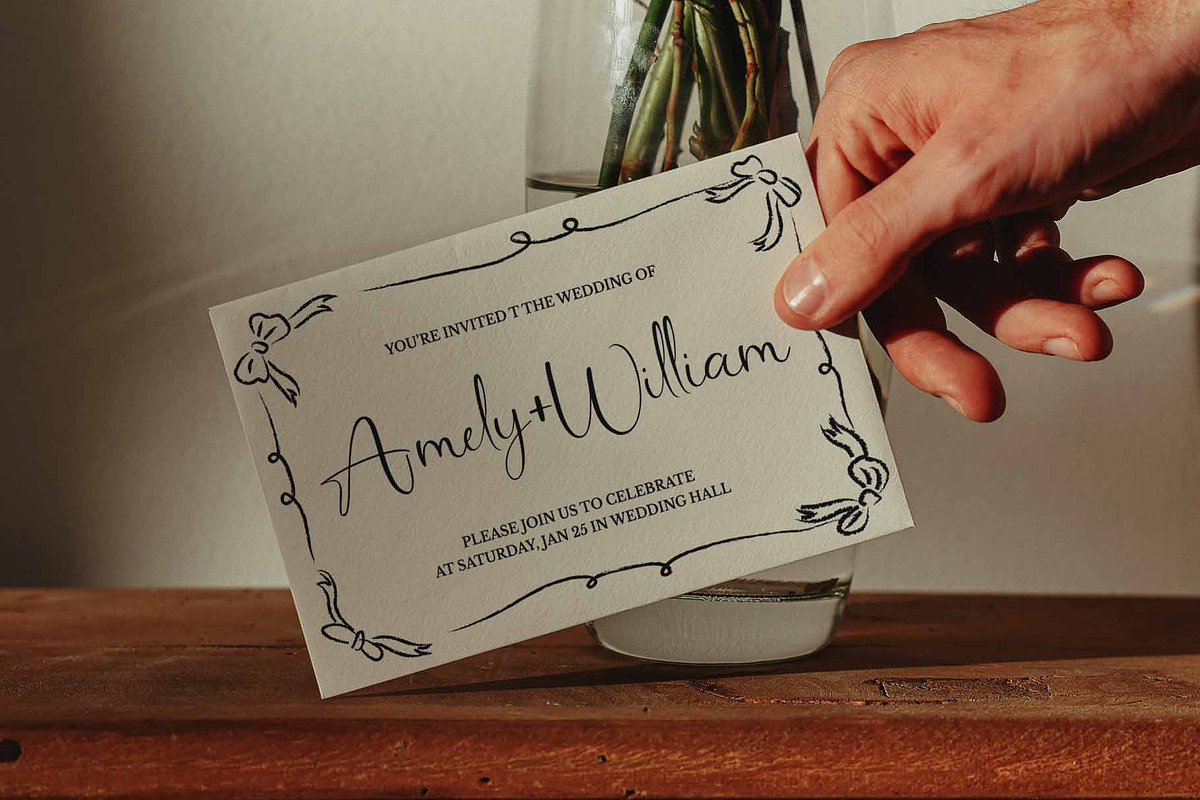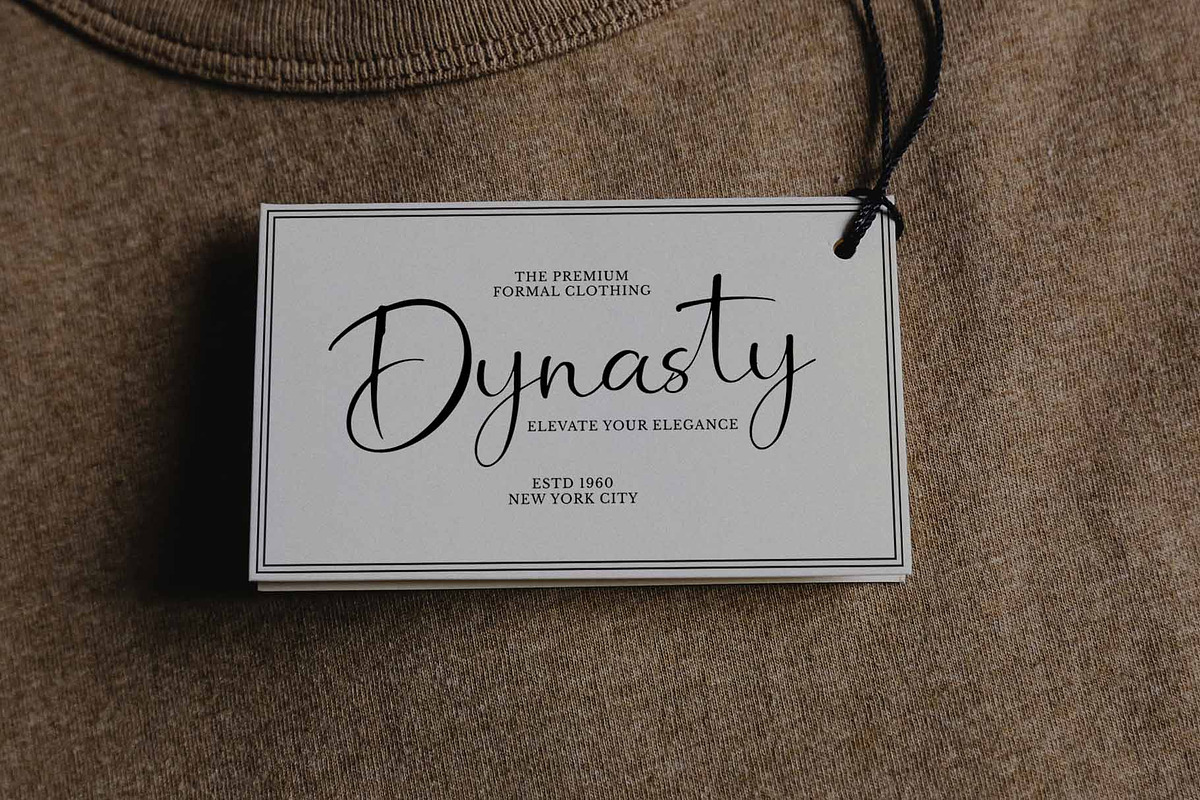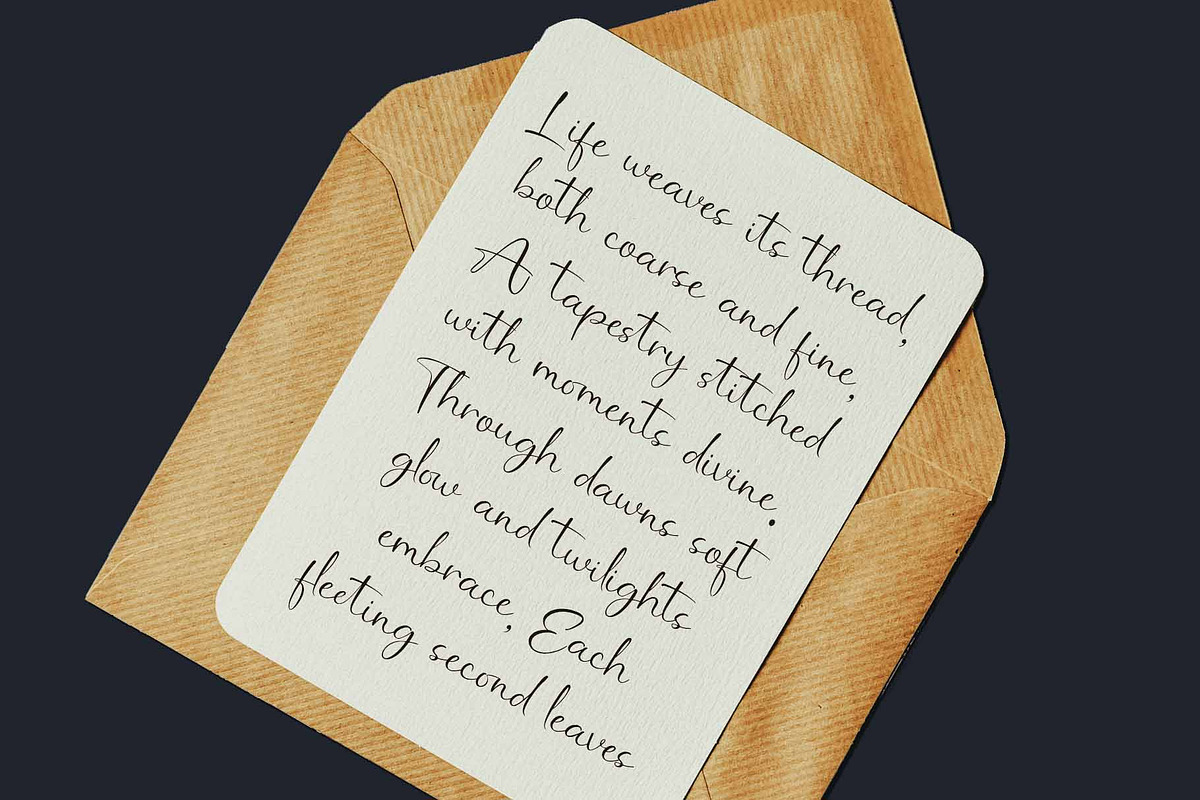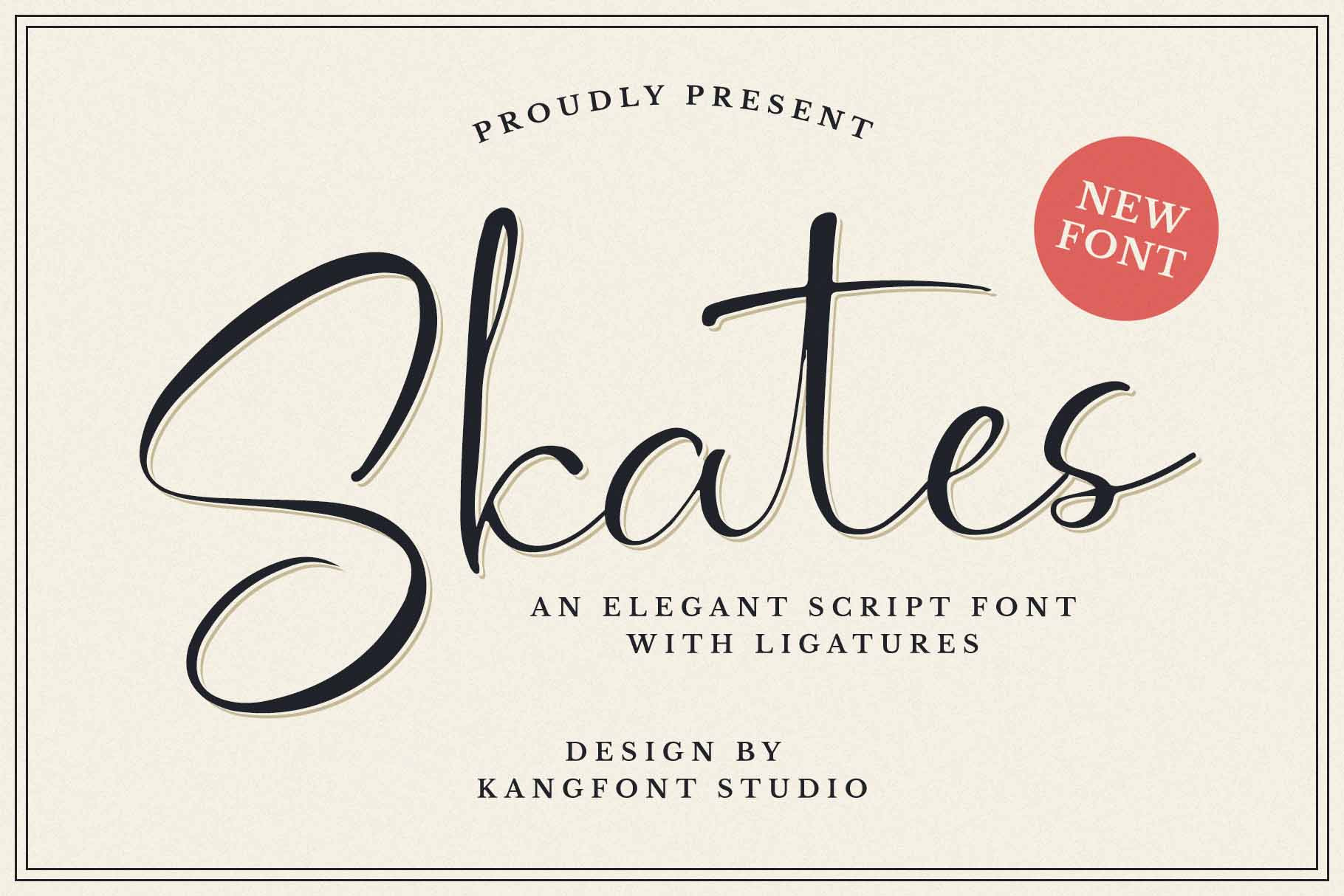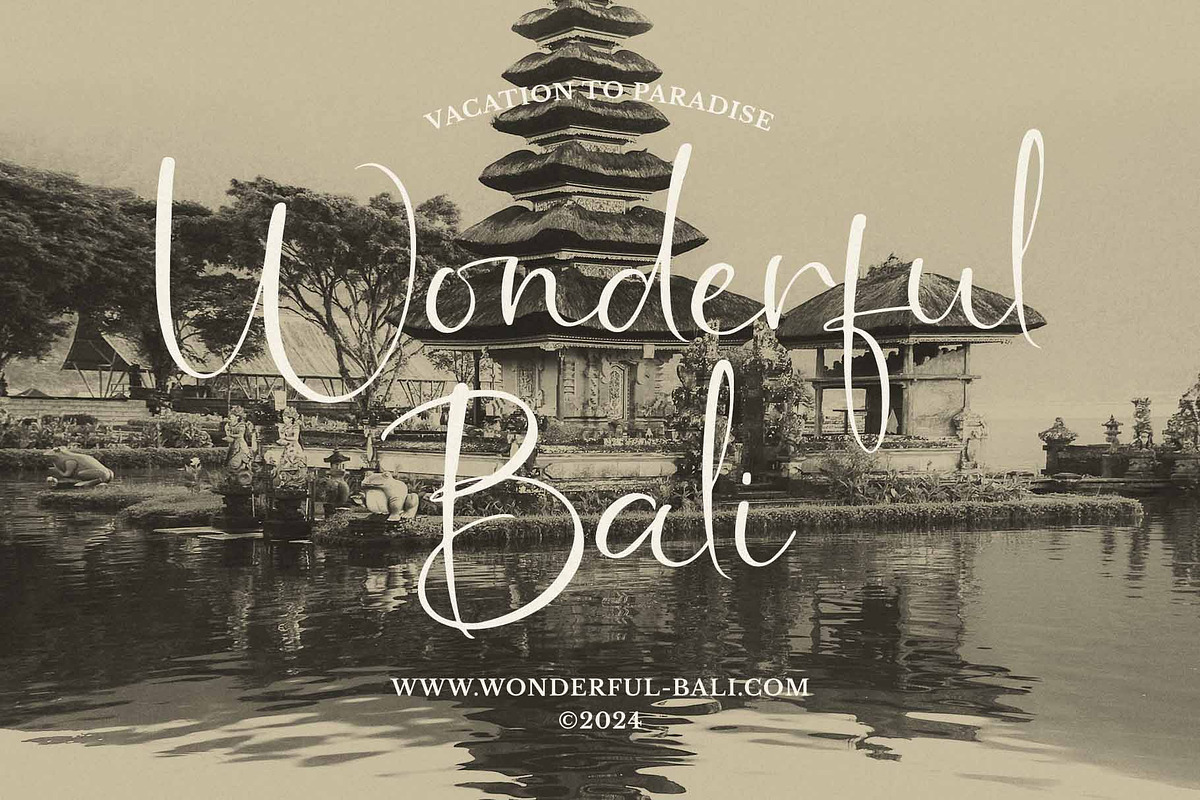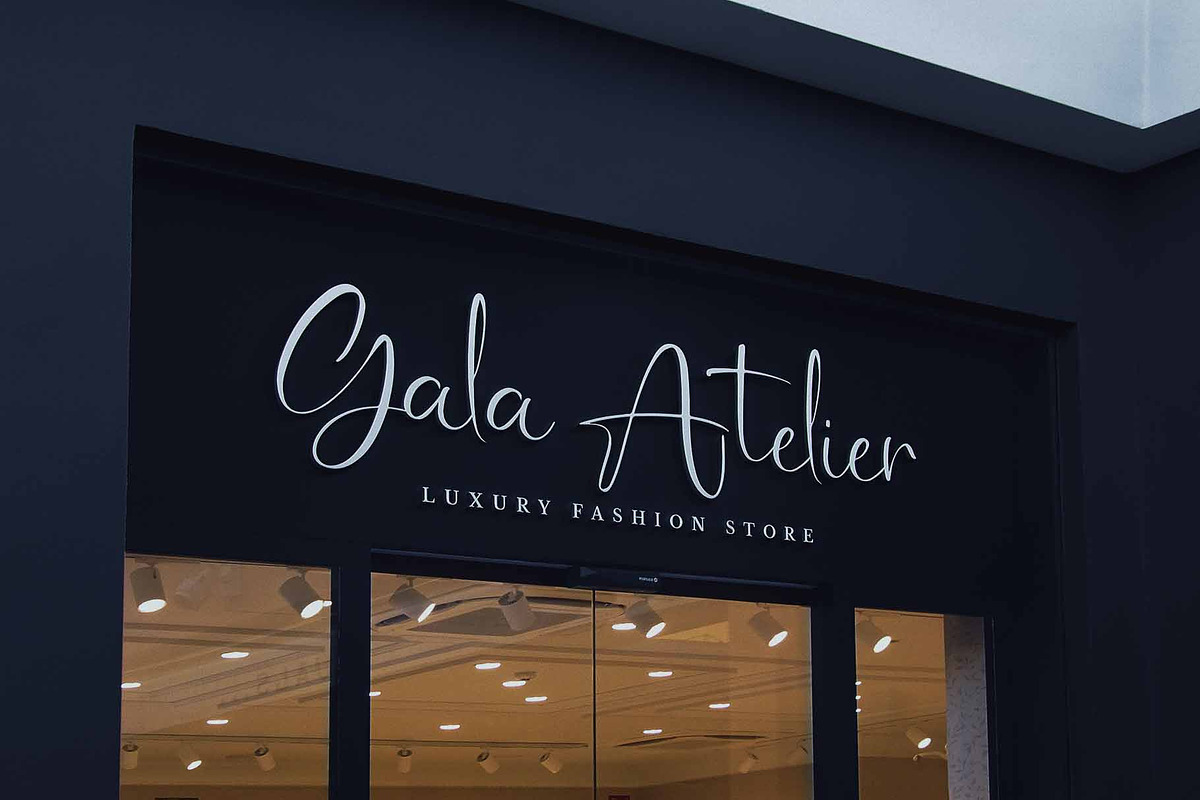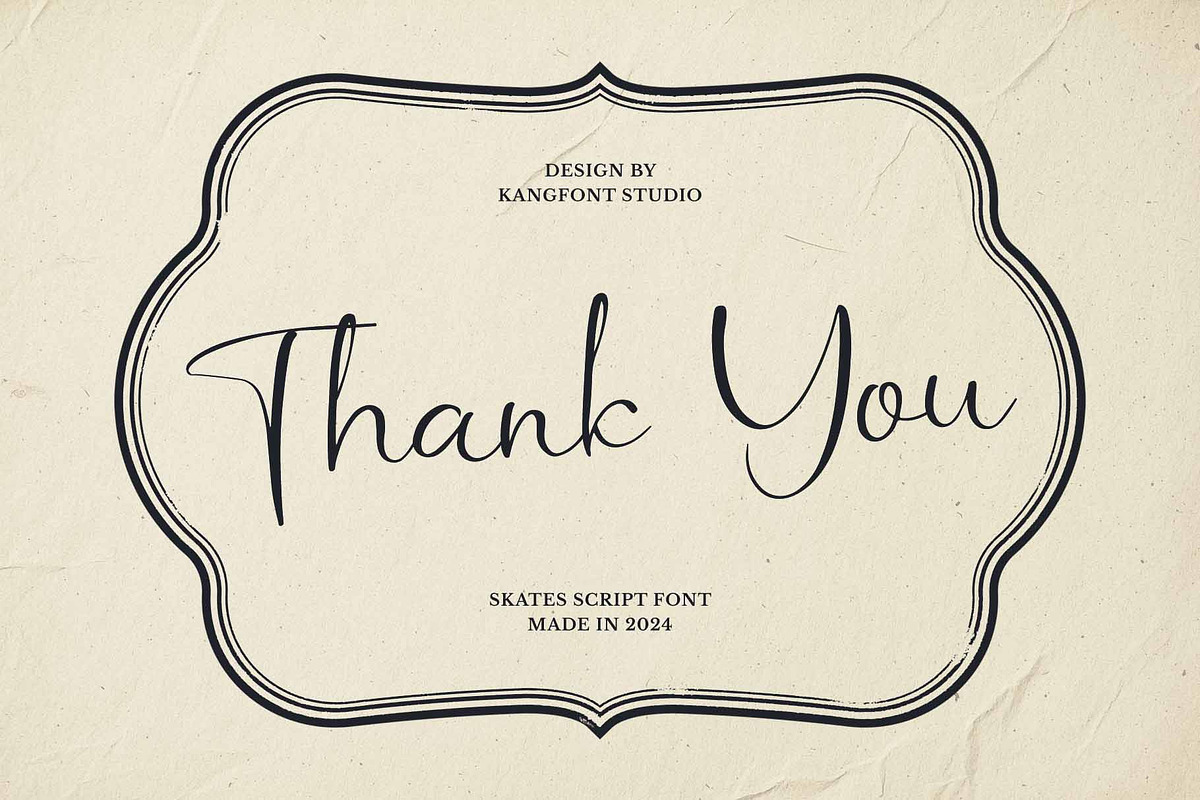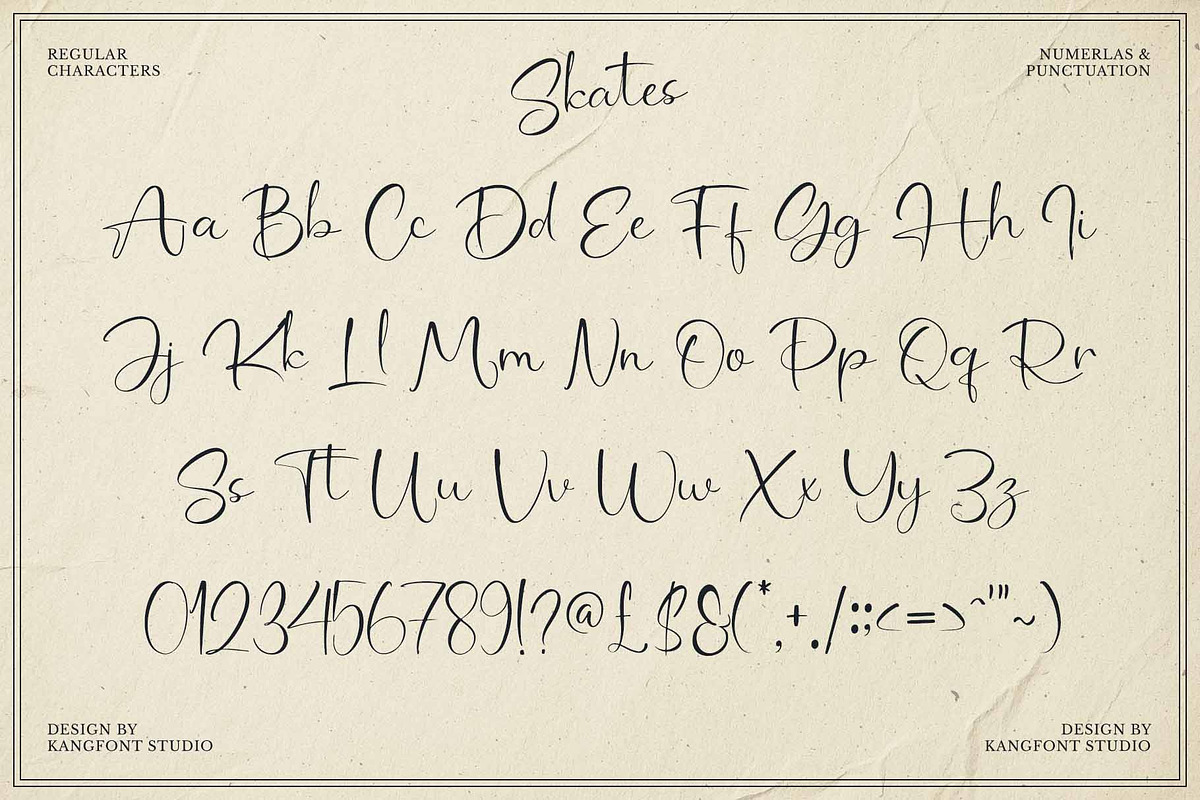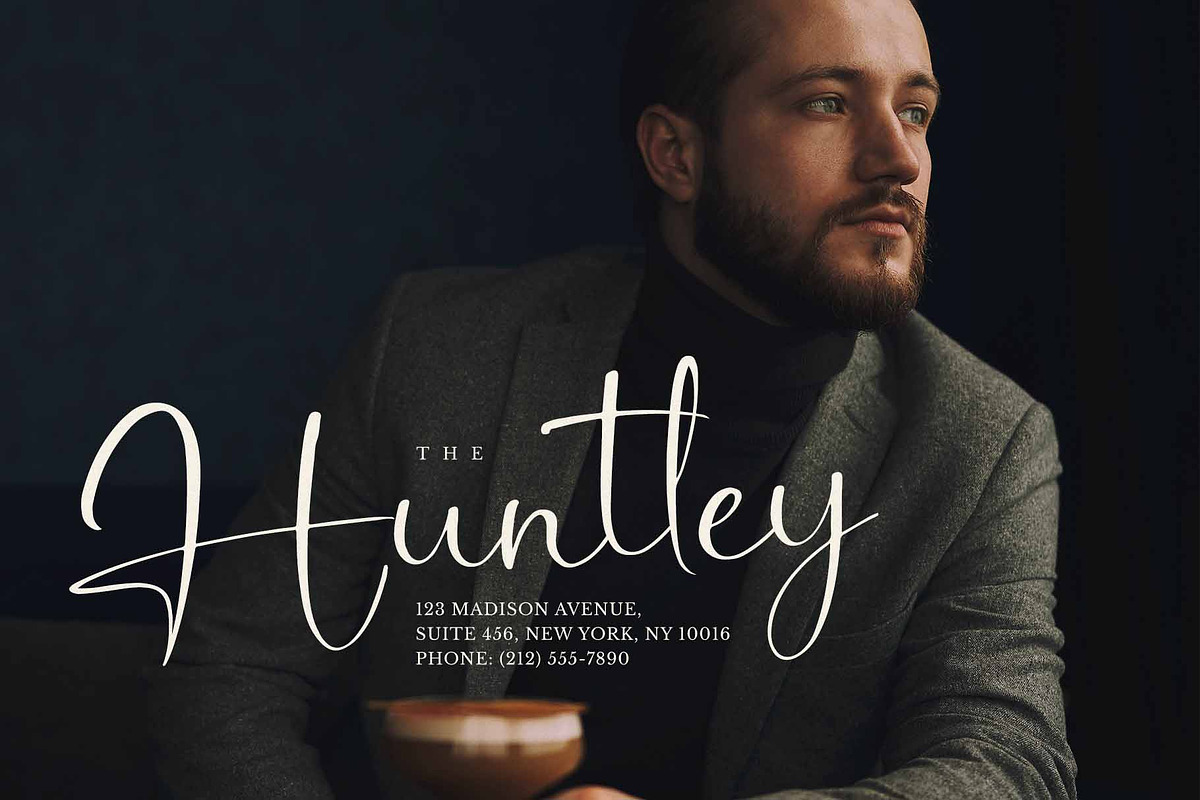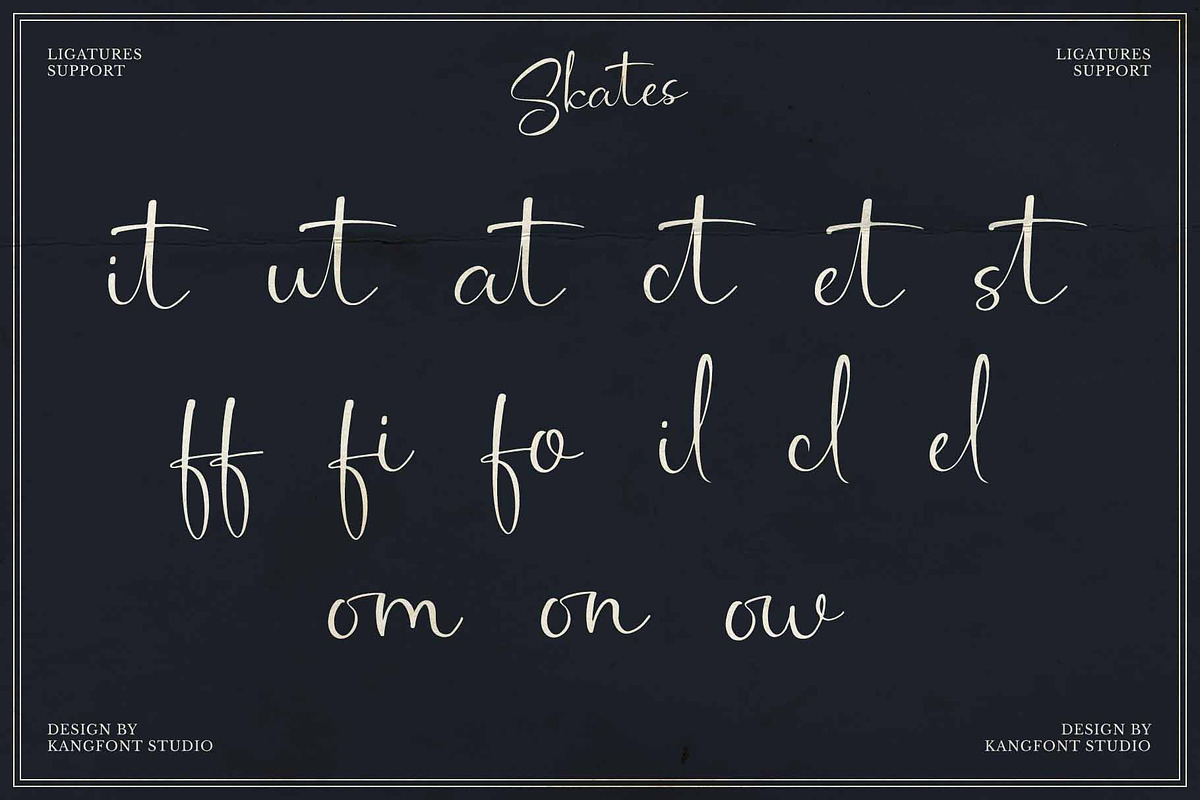
Skates – Elegant Script Font
Skates is an elegant script font designed to add an artistic touch to your creative projects. Featuring smooth ligatures, this font is perfect for logos, invitations, branding, and various other design purposes. Skates beautifully blends classic and modern styles to deliver captivating and professional results.